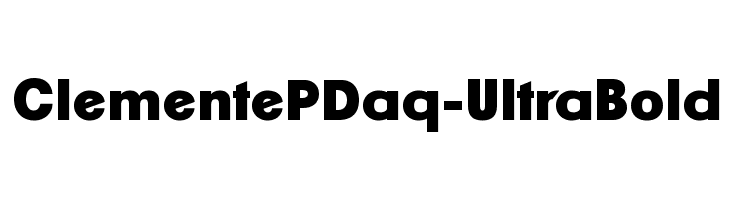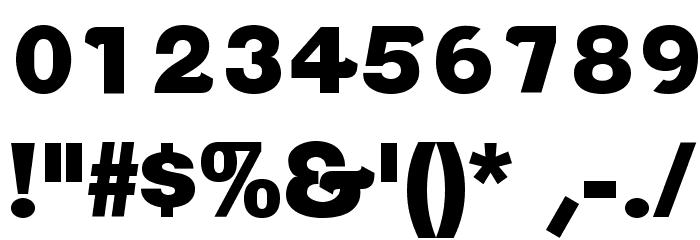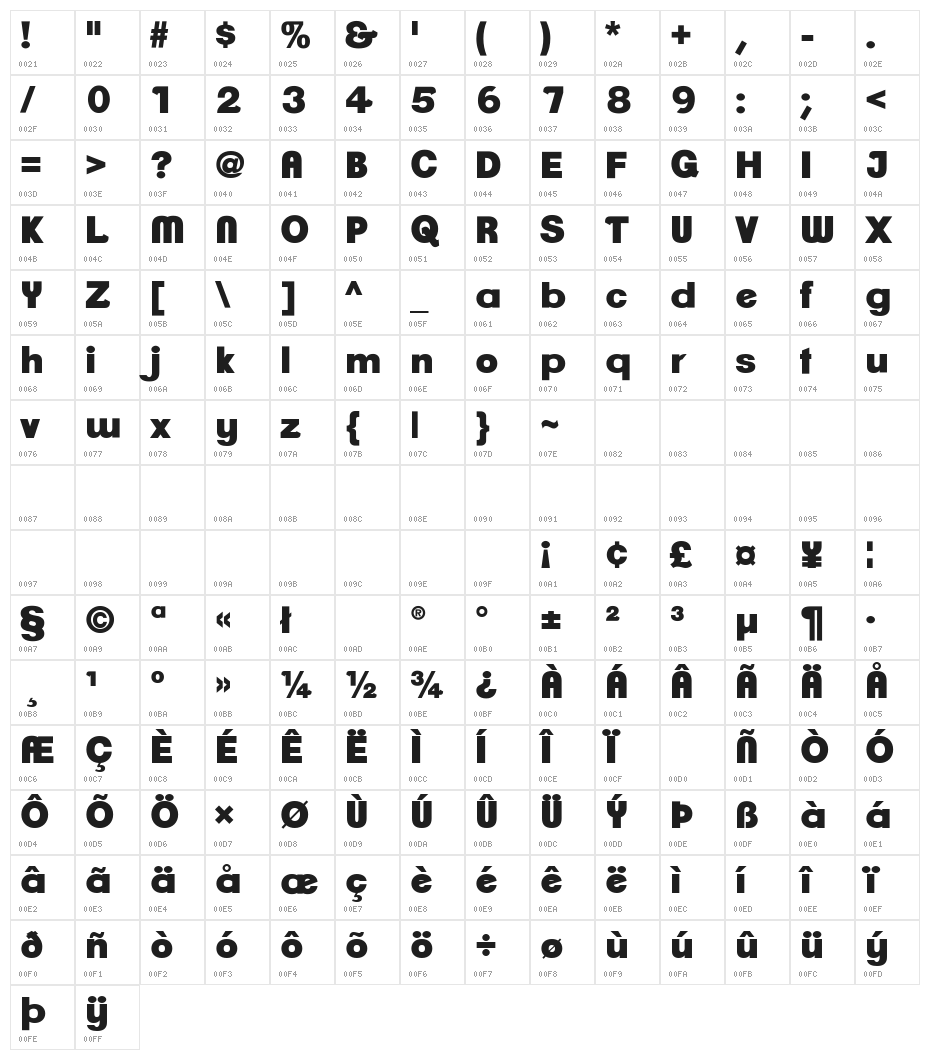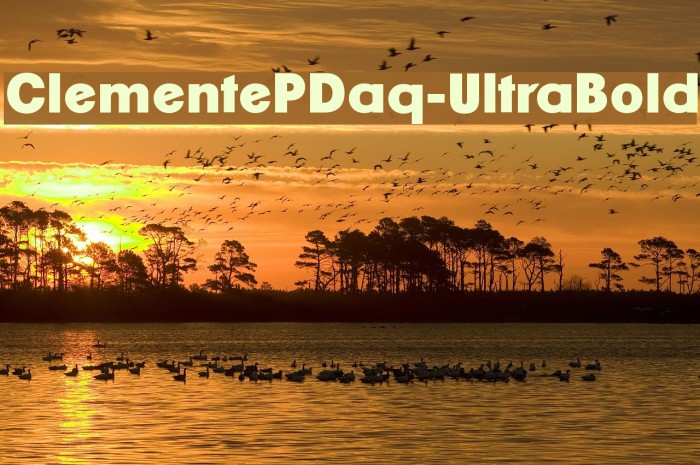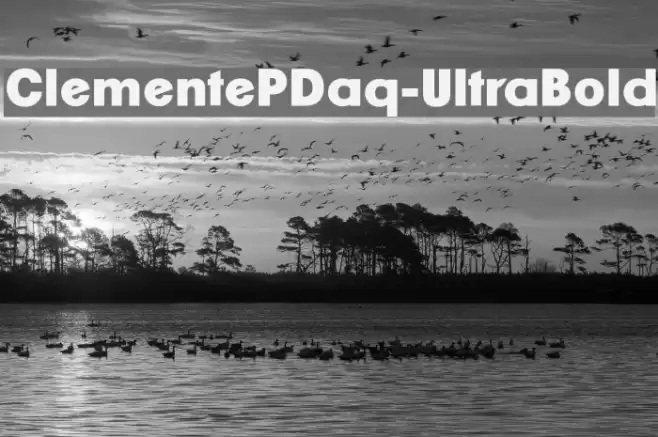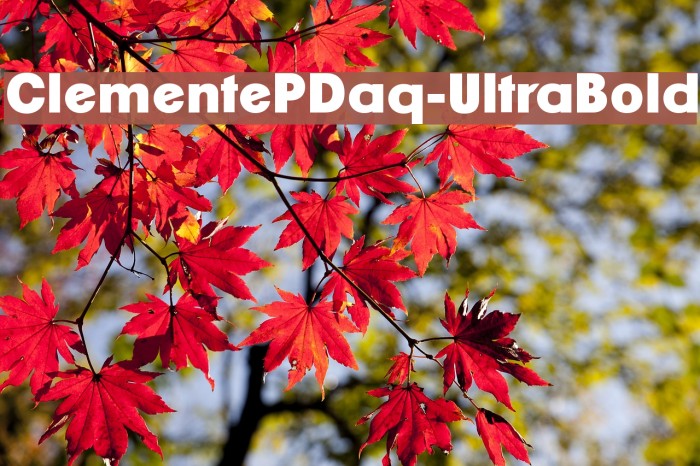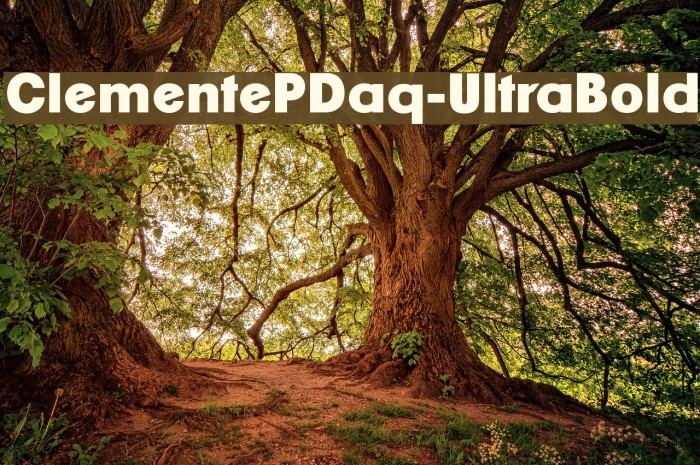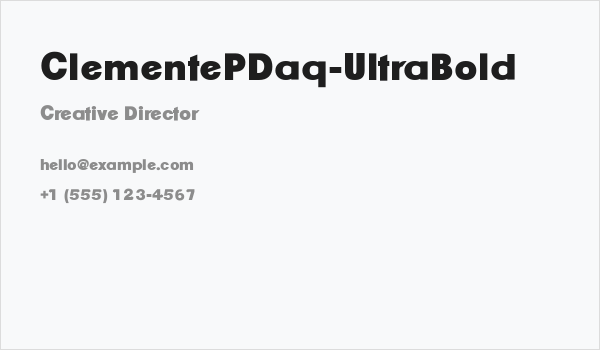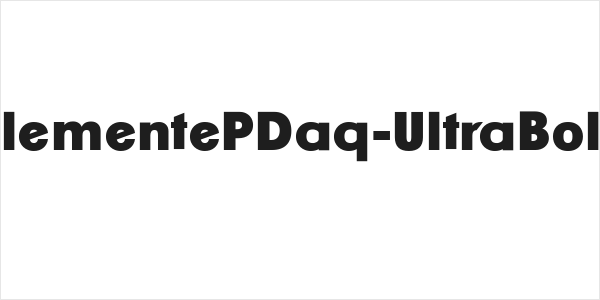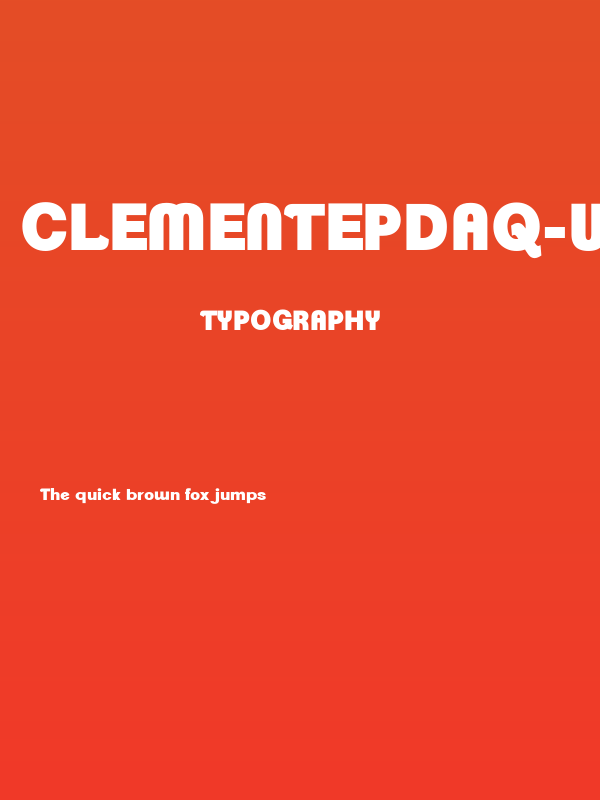
ClementePDaq-UltraBold Font
ClementePDaq-UltraBold Description
This font features a bold and robust design with thick, uniform strokes that convey strength and impact. The characters are rounded with a slight geometric influence, providing a modern yet approachable feel. The uppercase and lowercase letters maintain a consistent style, ensuring readability and balance. The numerals and special characters are designed to match the boldness of the alphabet, making them stand out effectively. This font is ideal for making strong visual statements while maintaining clarity.